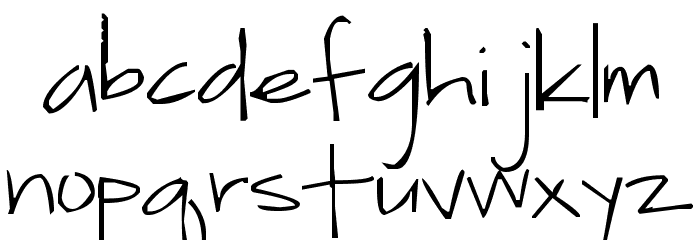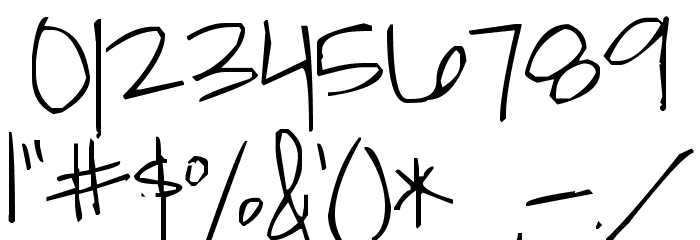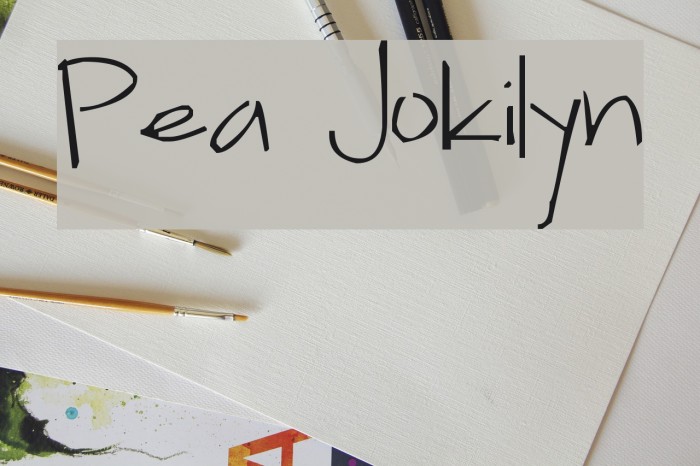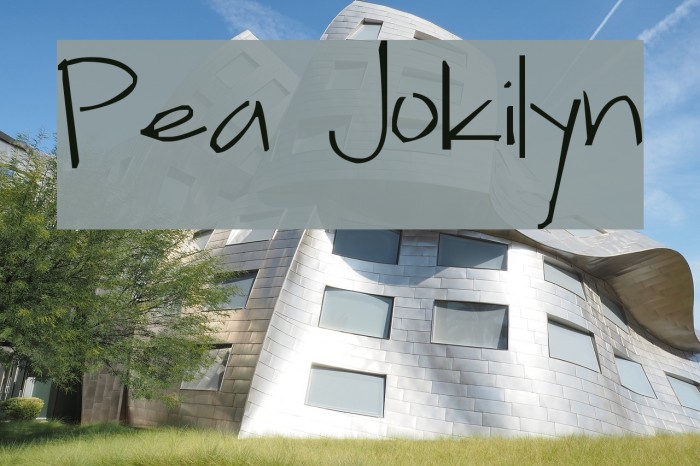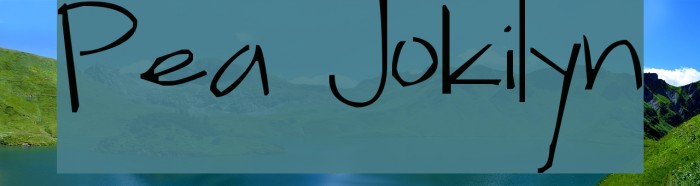
Pea Jokilyn Font
This font exudes a playful and casual handwritten style, characterized by its irregular and spontaneous strokes. The letters are unevenly sized, adding a whimsical and informal touch. The uppercase and lowercase letters maintain a consistent flow, with a slight slant that enhances its handwritten feel. The numbers and special characters follow the same playful aesthetic, making them blend seamlessly with the alphabet. The overall appearance is dynamic and lively, perfect for projects that require a personal and approachable tone.
A playful, casual handwritten font with irregular strokes and a whimsical style.
- Proposed Projects: Ideal for greeting cards, personal notes, children's books, and informal branding projects.
- Overall Style: Casual, Playful
- Use Case: Logos, Informal Text, Personal Projects